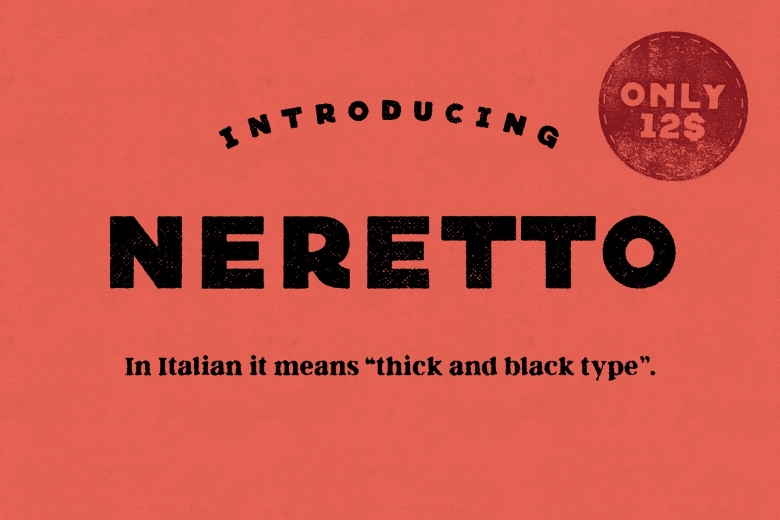
Neretto Sans Font
Take your first look at Neretto Sans font, a clean sans serif that is as chic as it is minimal; derived from Sensi Bold font by Valerio Dell’Edera. These fonts are named by an Italian word that means a thick and black type of font. Neretto is ideal as titling font for text faces in magazines, logotypes and the like.
Neretto Sans Serif Font